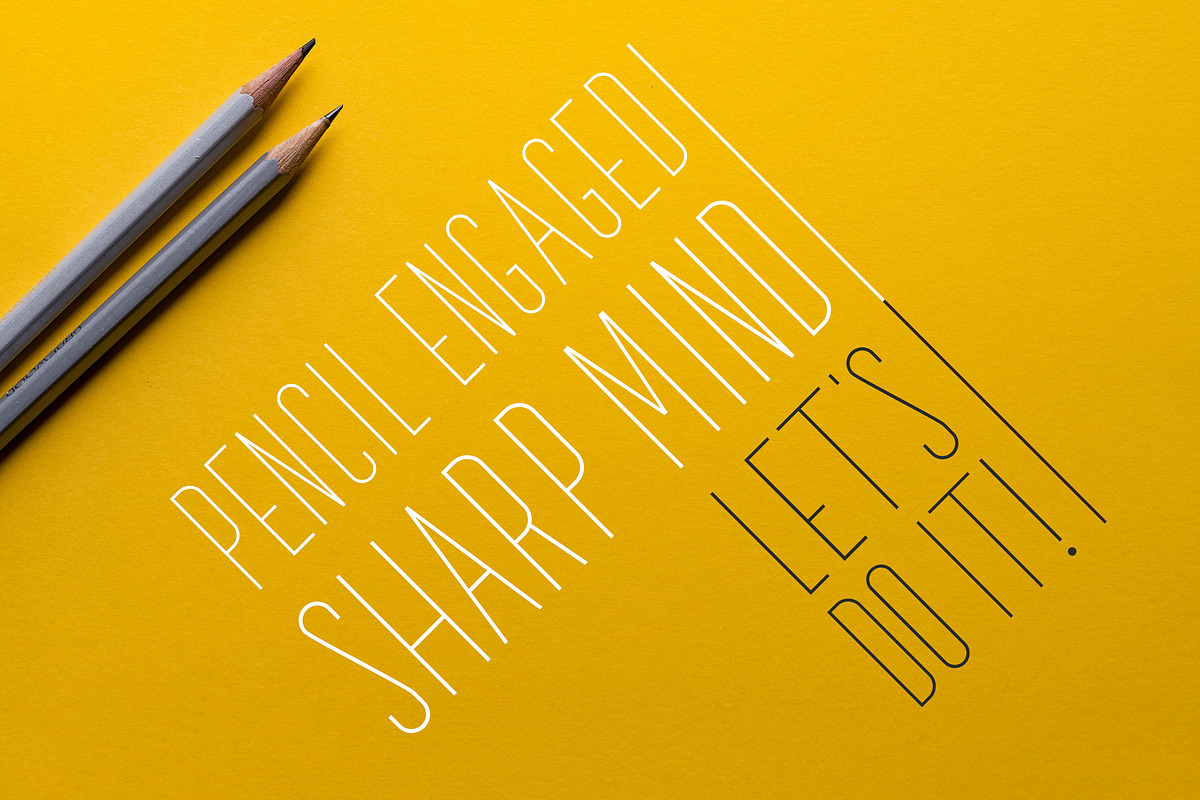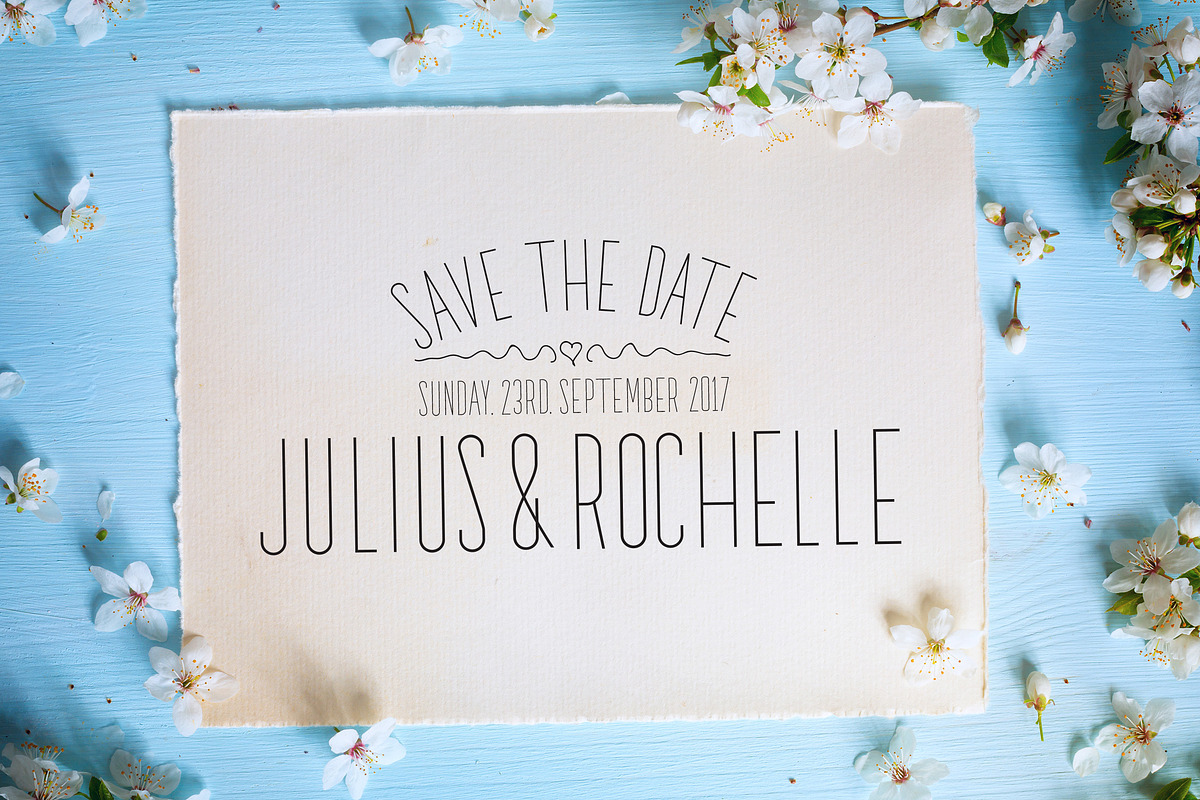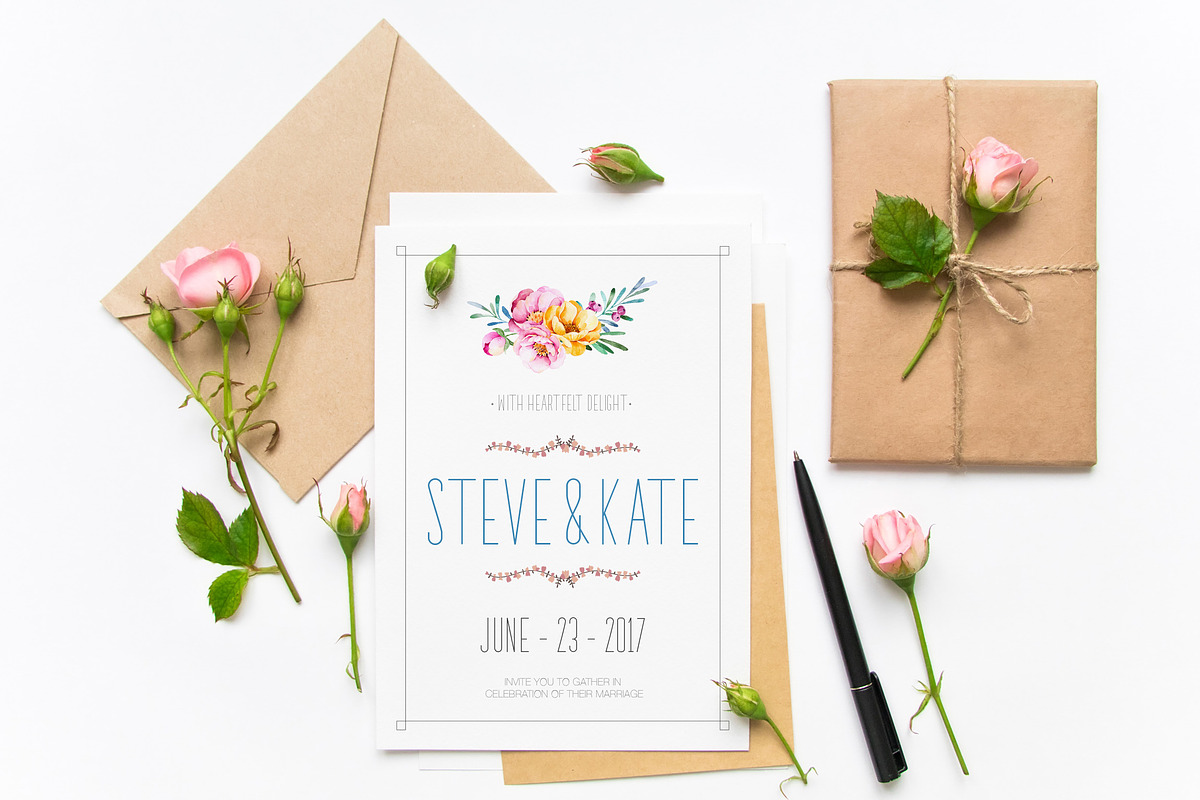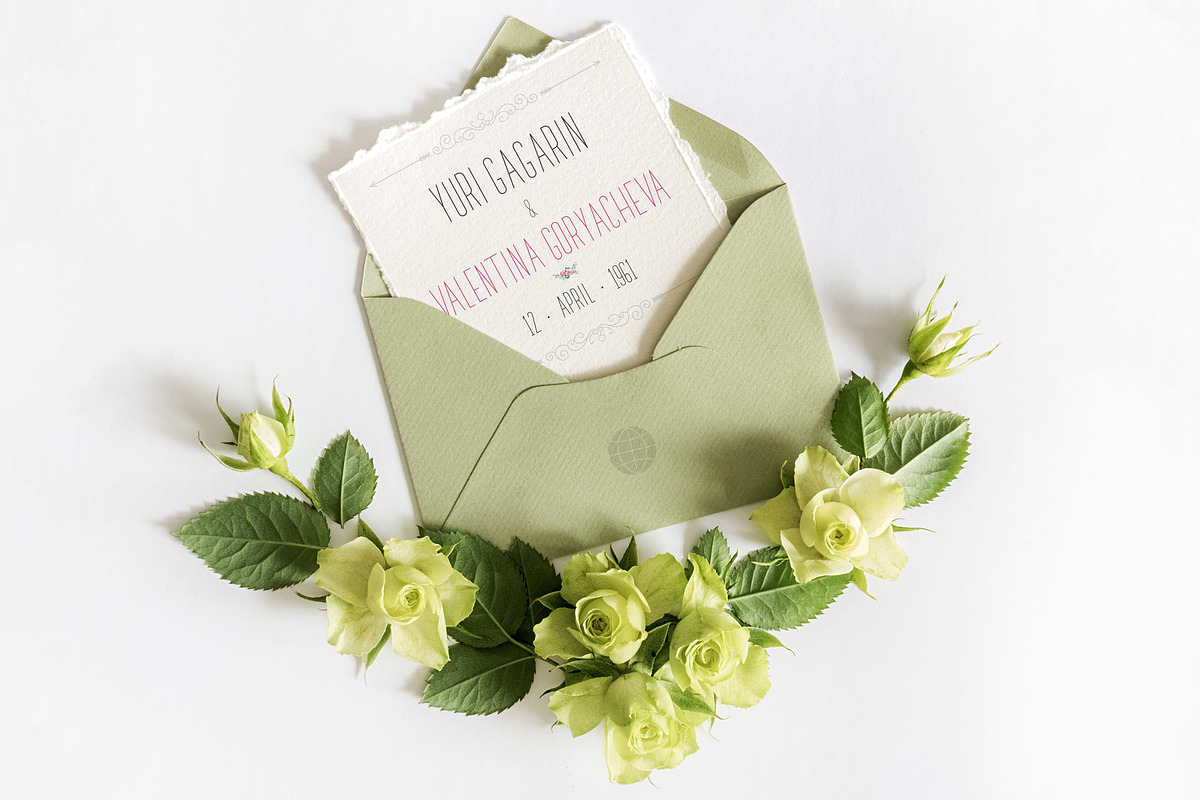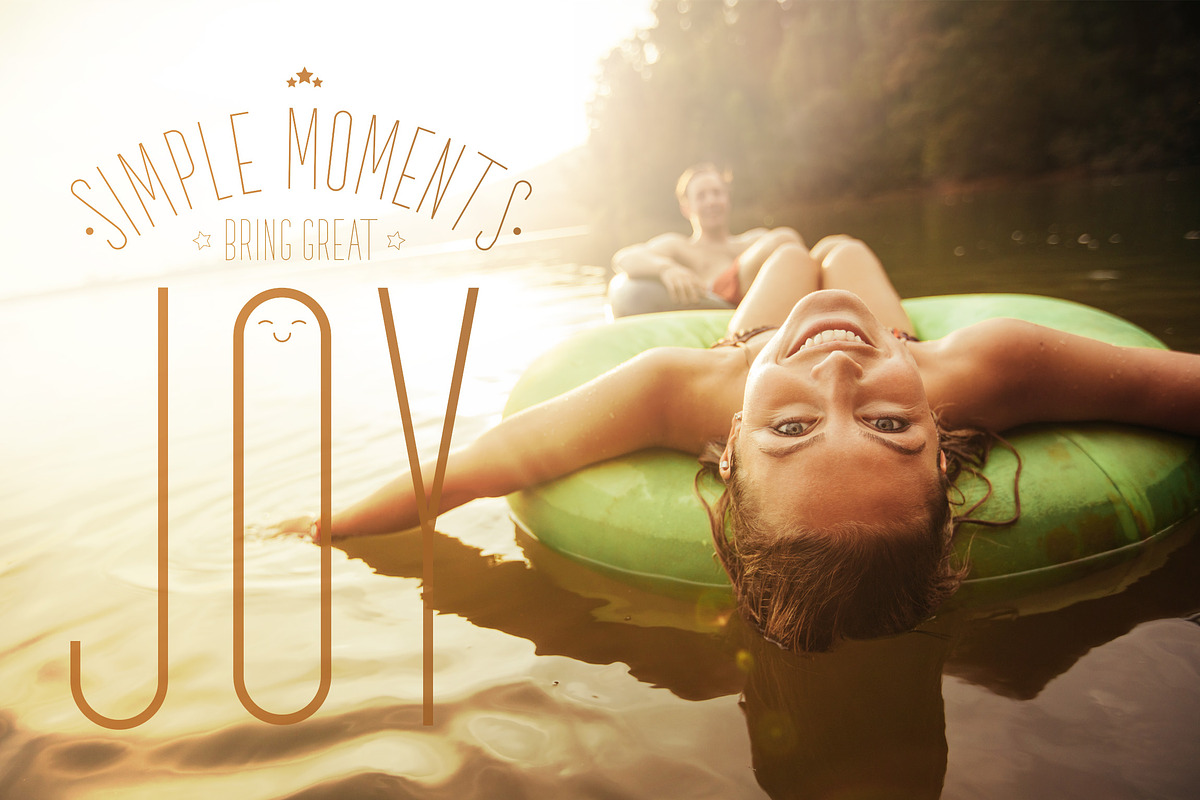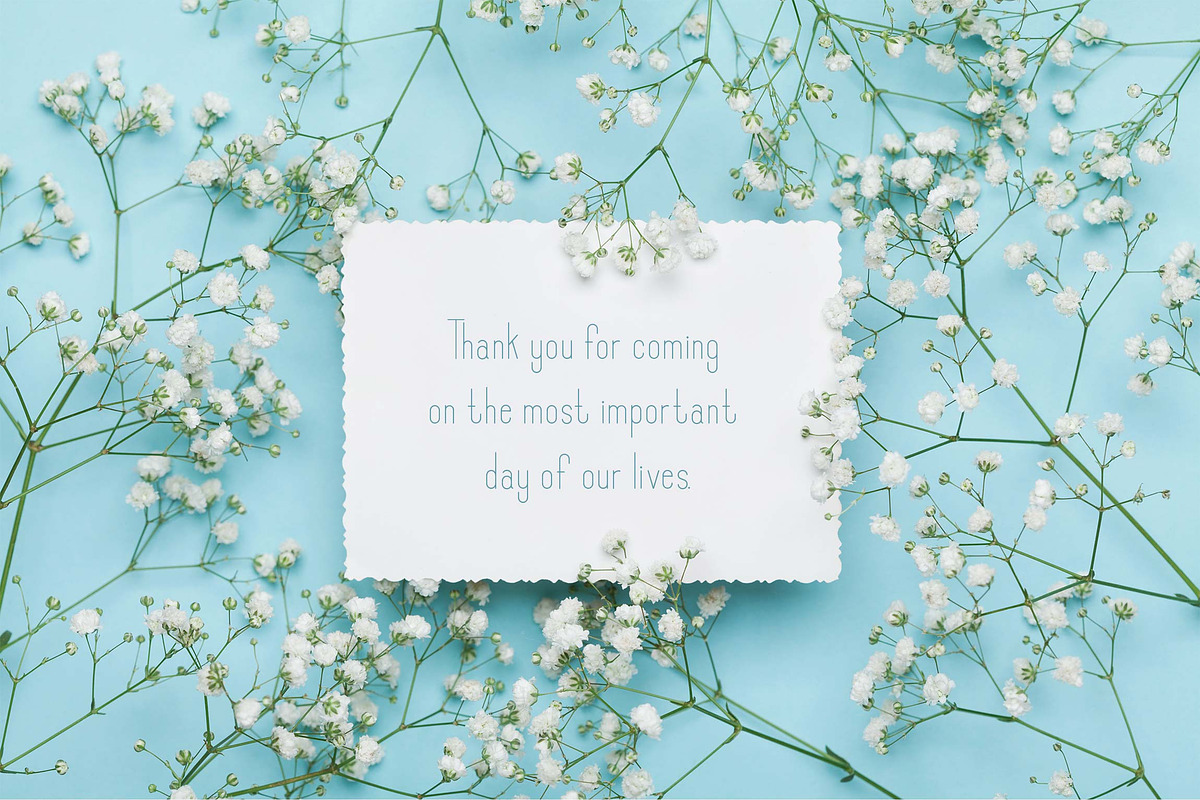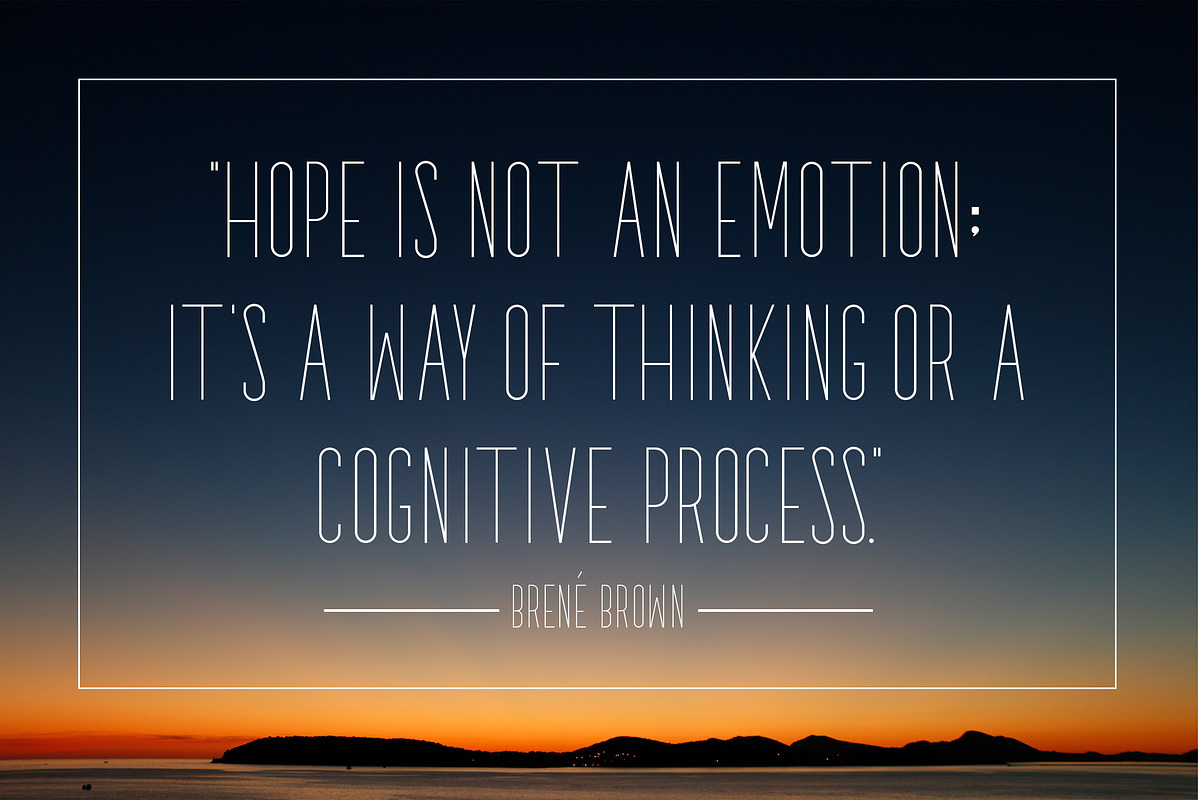
Sprout - Sans Serif Font
Sprout - Sans Serif Font by CorgiAstronaut is a font selected for branding, posters, packaging, typography.
Why Sprout - Sans Serif Font is worth a look
Sprout - Sans Serif Font by CorgiAstronaut fits naturally into Branding, posters, packaging, typography.